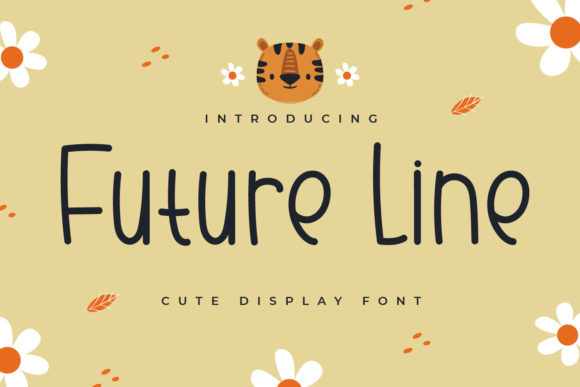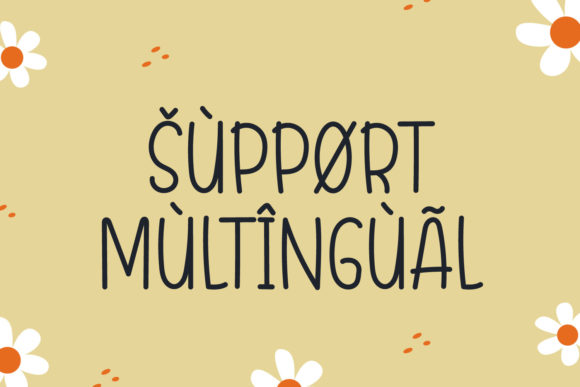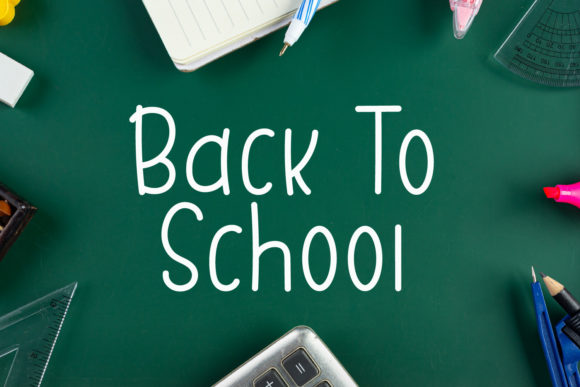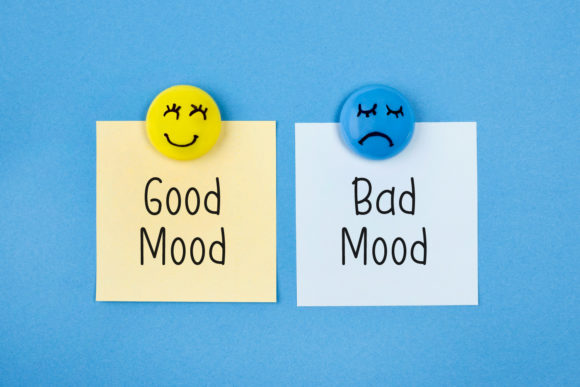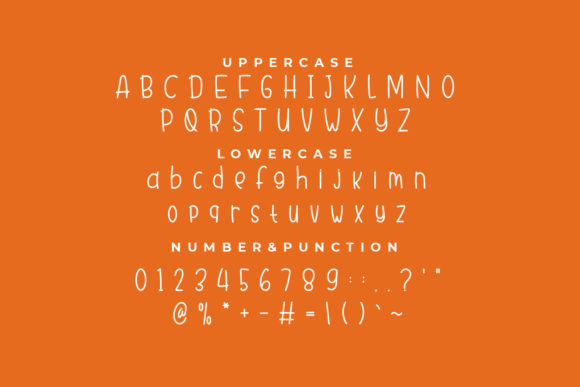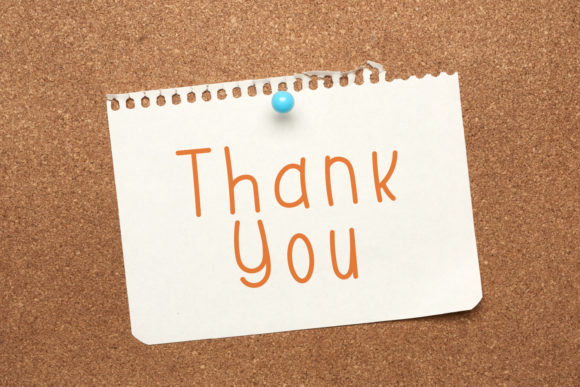
Future Line Font
About Future Line Font
Future Line is a thin, cute and friendly handwritten font. Whether you are using it for cartoon-related designs, children’s games, quotes, titles, brand names, book covers, posters, or just any creation that requires a touch of beauty, this font is a great choice.